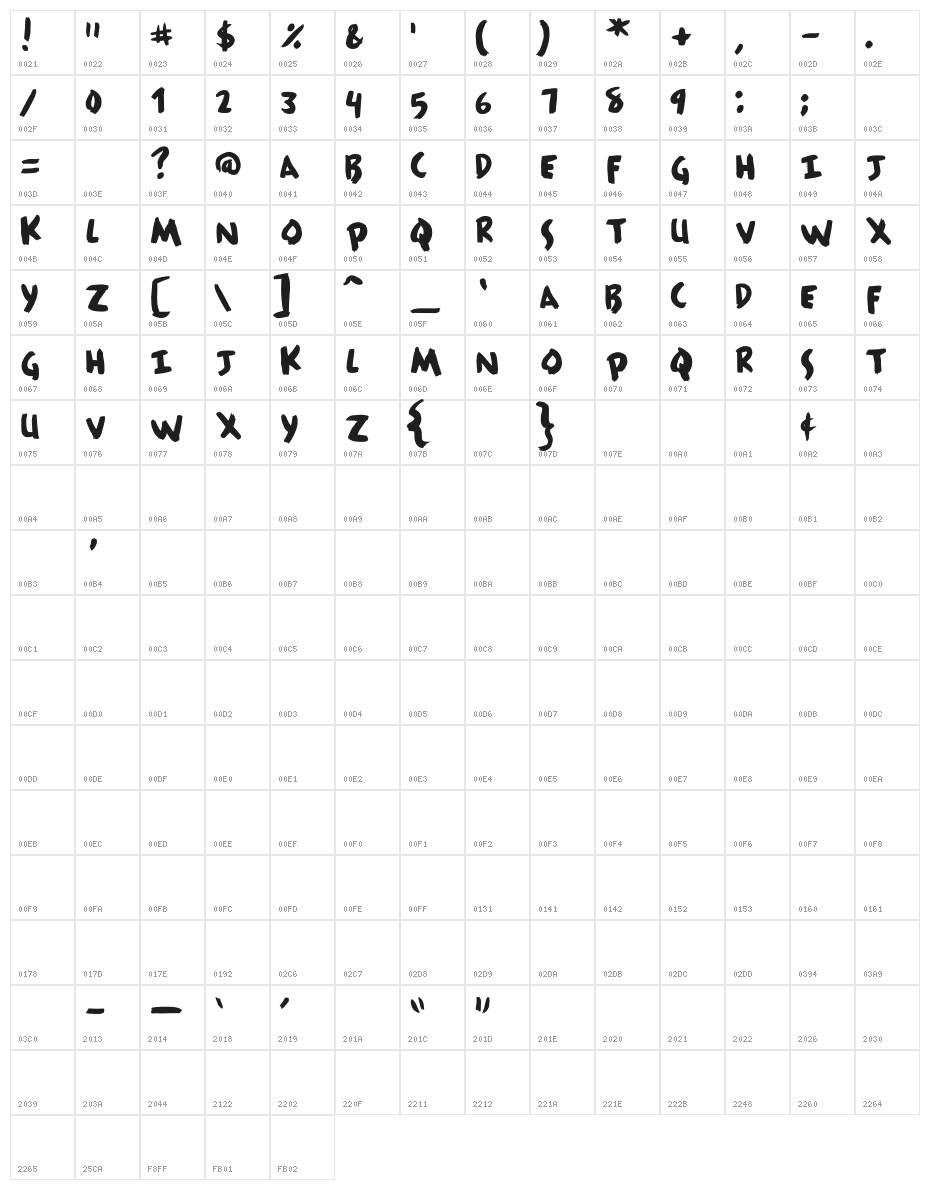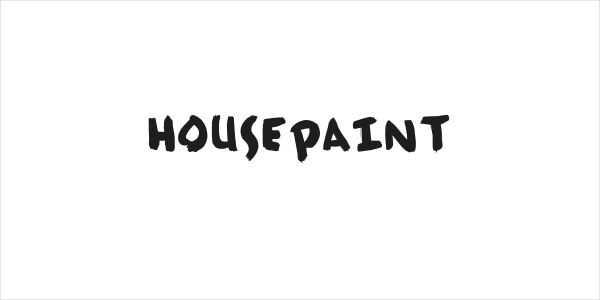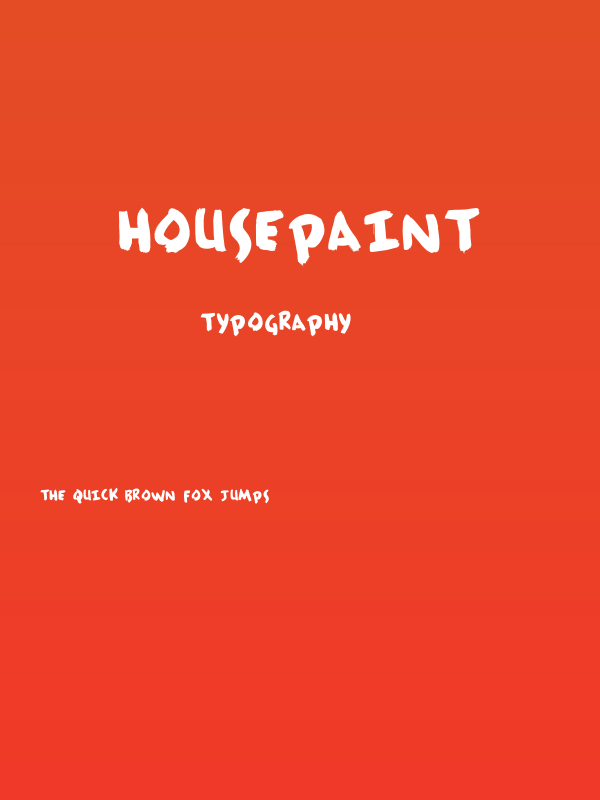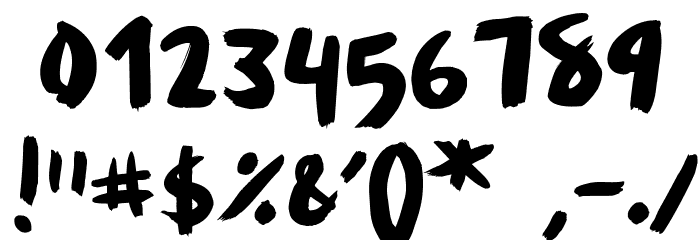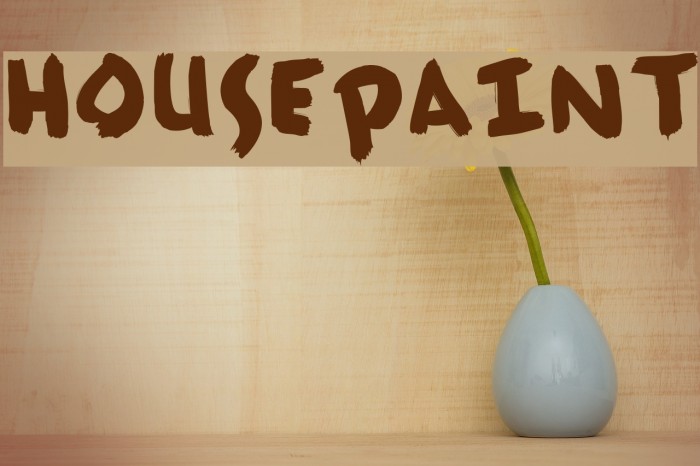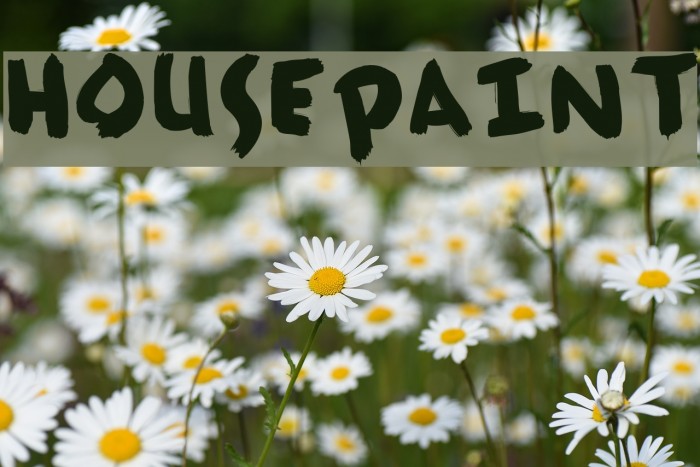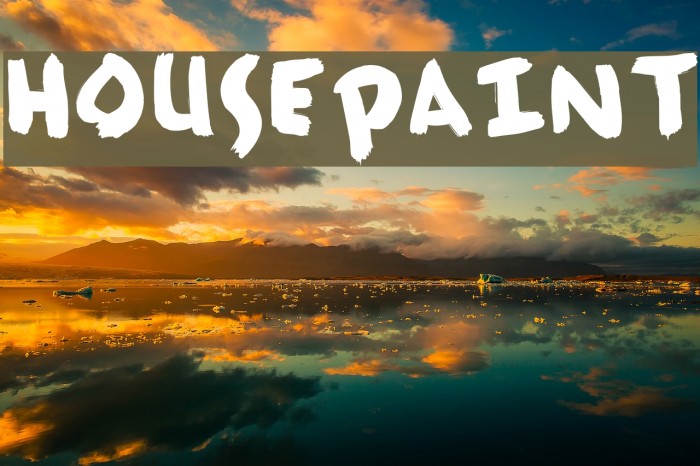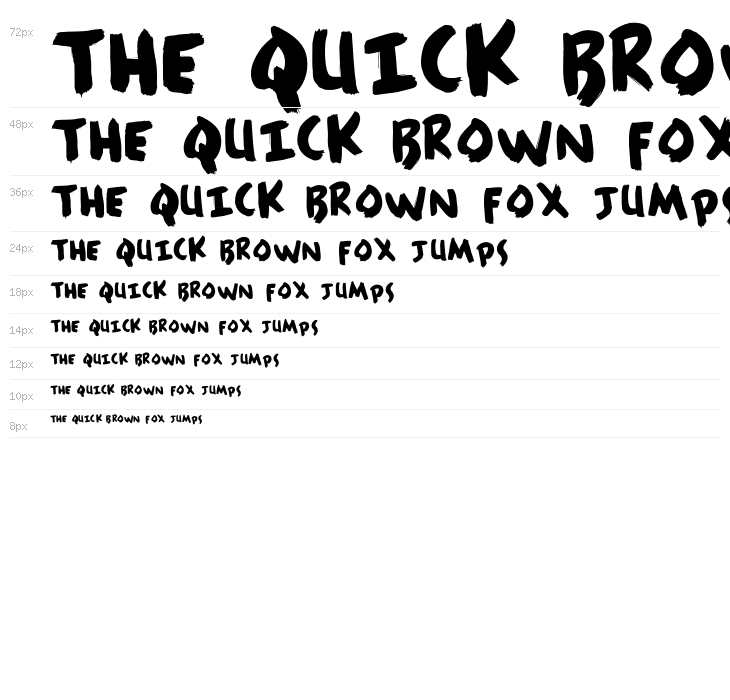
HousePaint Font
HousePaint Description
This font features a bold, brush-like style that exudes a sense of energy and dynamism. The characters are crafted with a hand-painted appearance, showcasing irregular edges and varying stroke thicknesses that add a lively and informal touch. The uppercase and lowercase letters maintain a consistent style, with a slightly condensed form that enhances readability while preserving the artistic flair. Numbers and special characters follow the same aesthetic, ensuring a cohesive look across all text elements. This font is ideal for projects that require a personal, creative touch, such as posters, branding, and artistic designs.
| Proposed Projects | Ideal for posters, branding, artistic designs, and any project needing a creative, personal touch. |